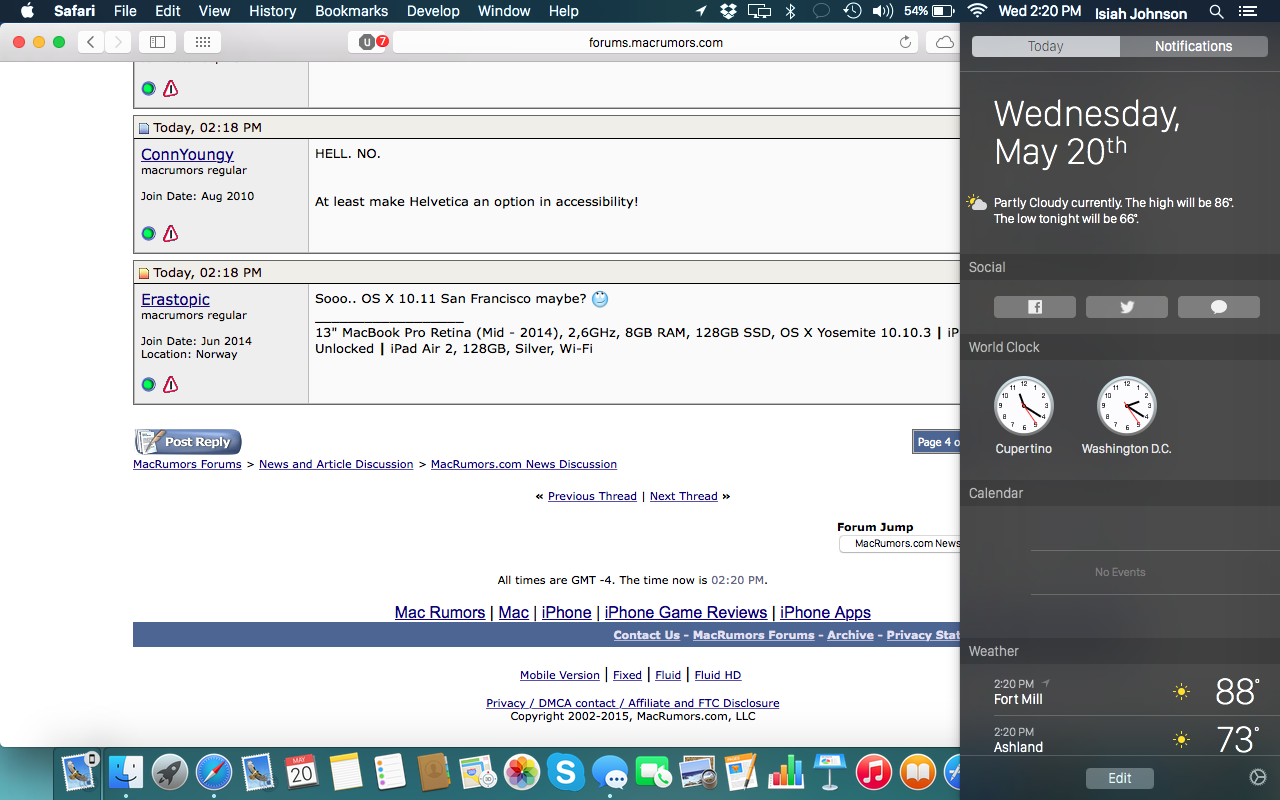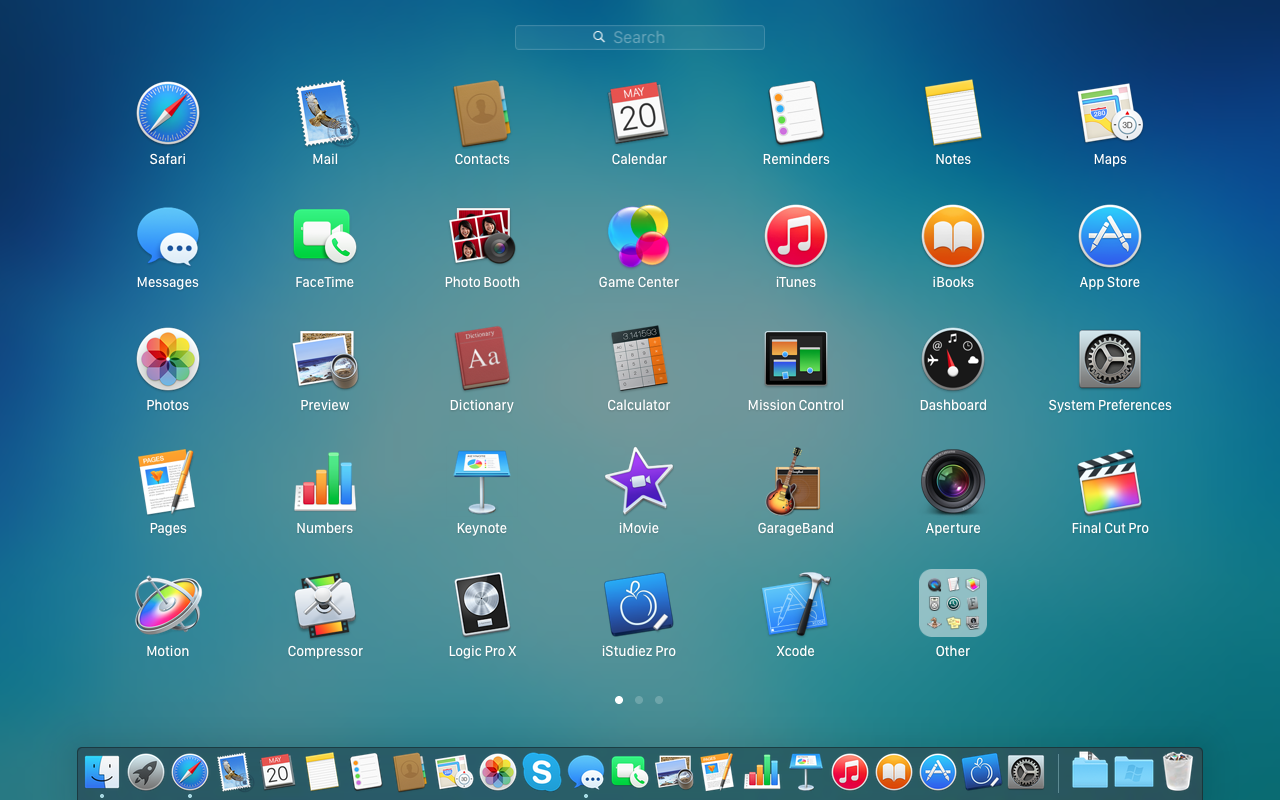
If they opt for San Francisco on iOS 9 and OSX Im pretty sure they will tweek it to make it look better as a display font as they did with Helvetica Neue on OSX
Is it possible to simply choose among 3-4 available system fonts, even if you have to download and buy them?
Here's the two side by side. Image
I much prefer the font below.. much clearer to me.
Ohforgot to label them. SF on top, Helvetica on bottom.